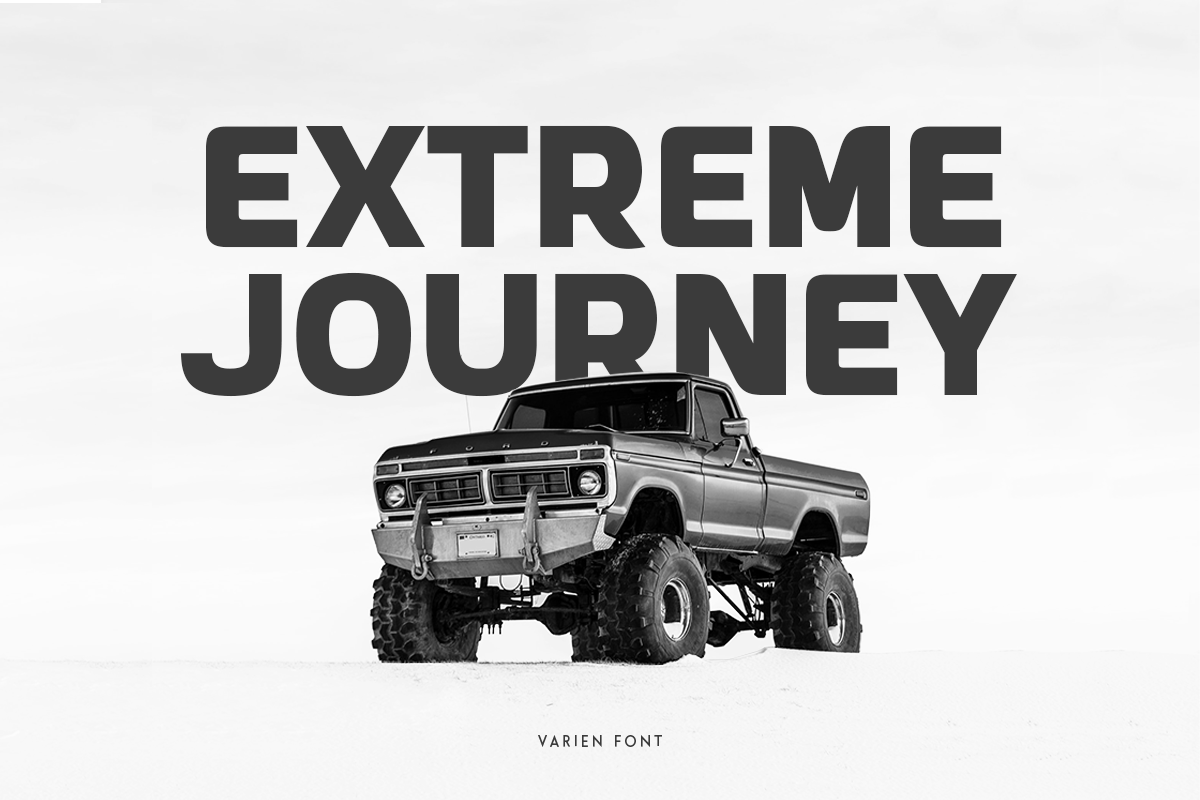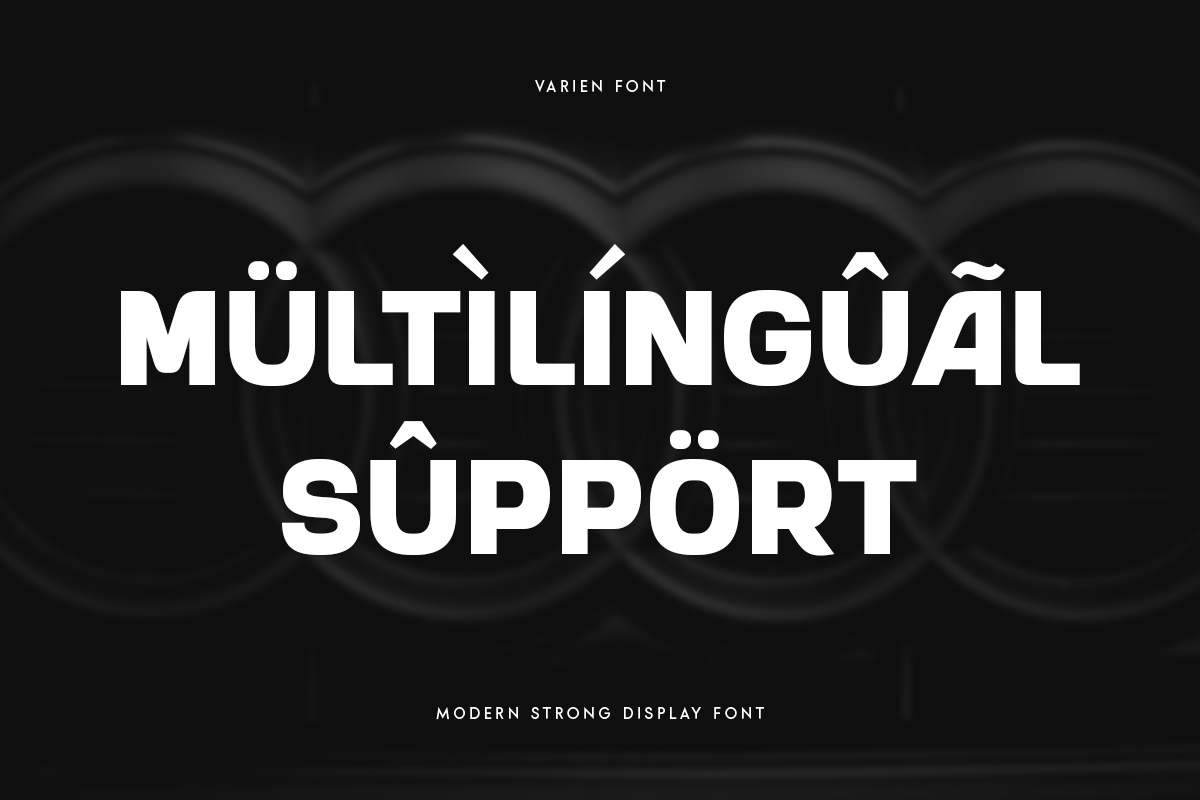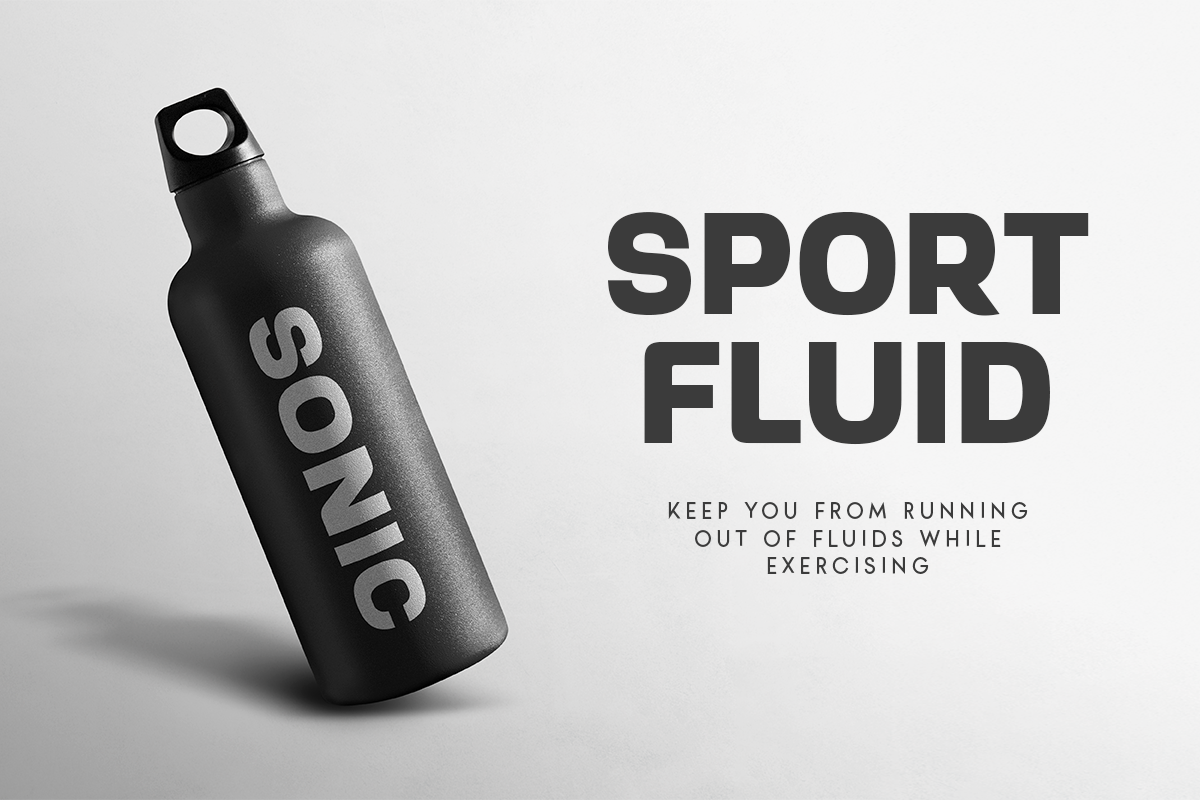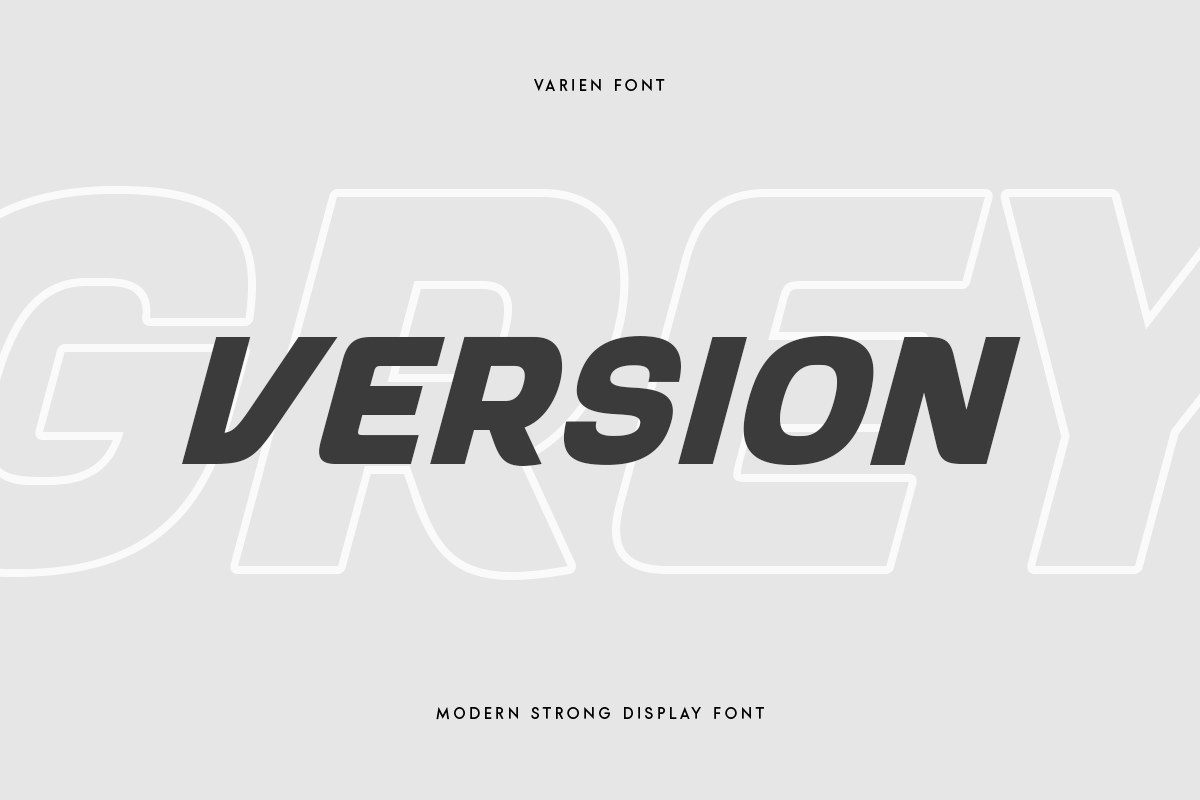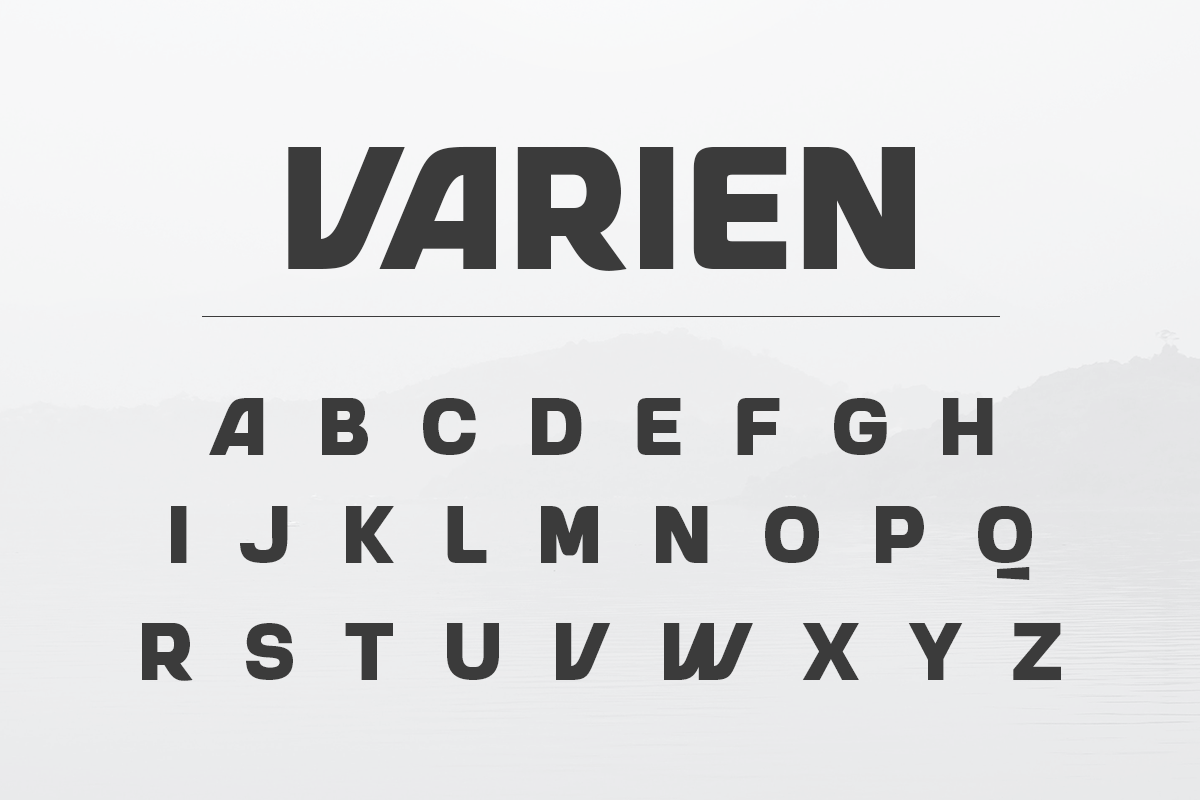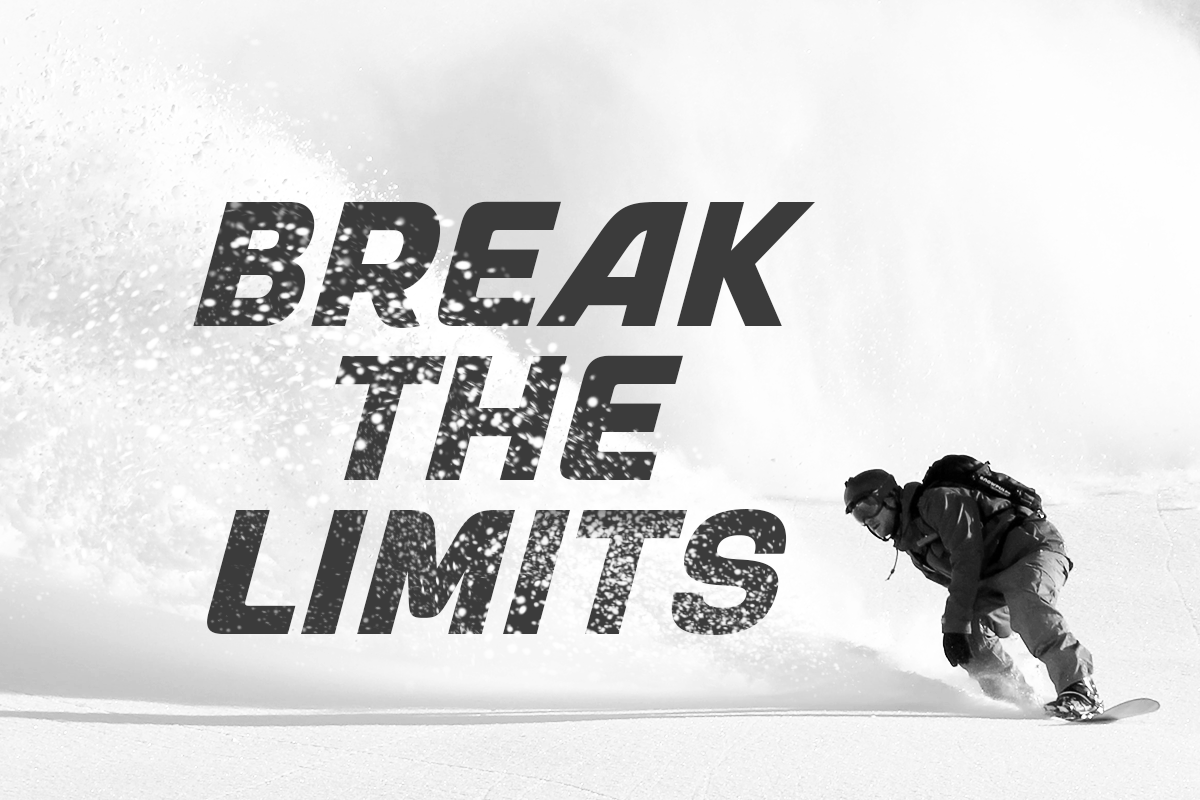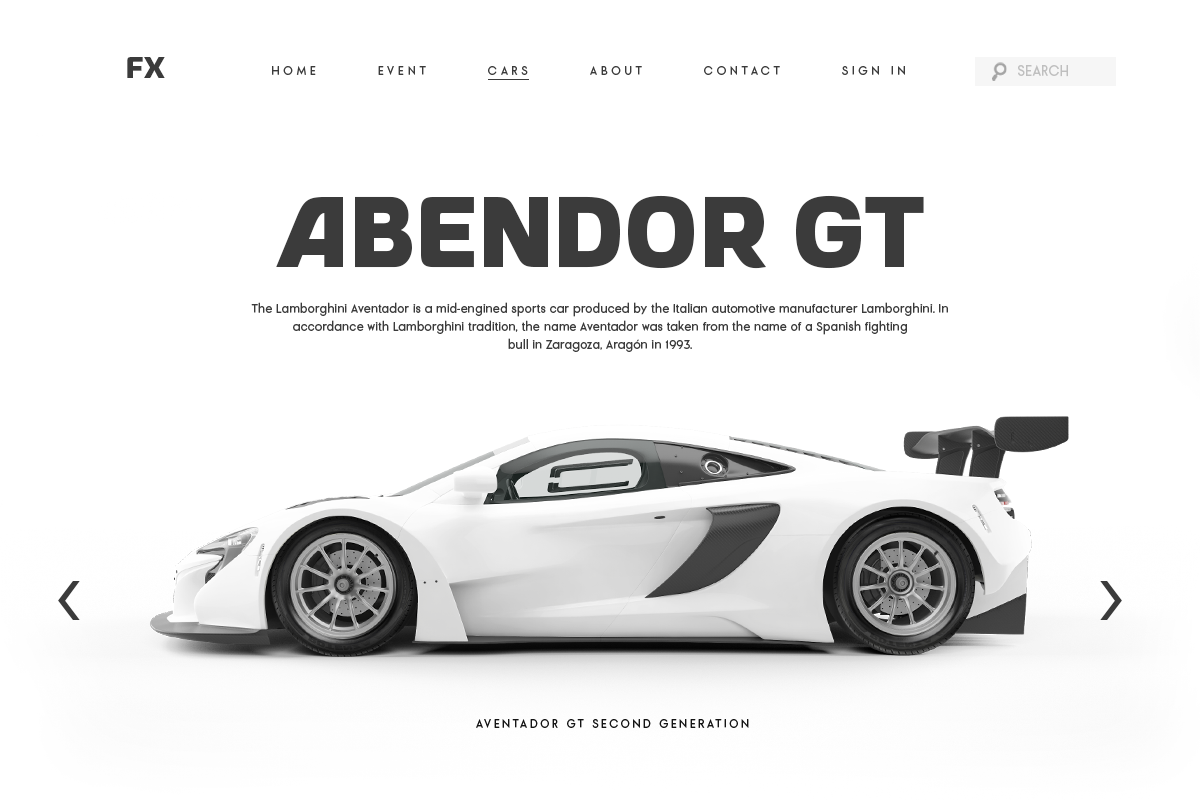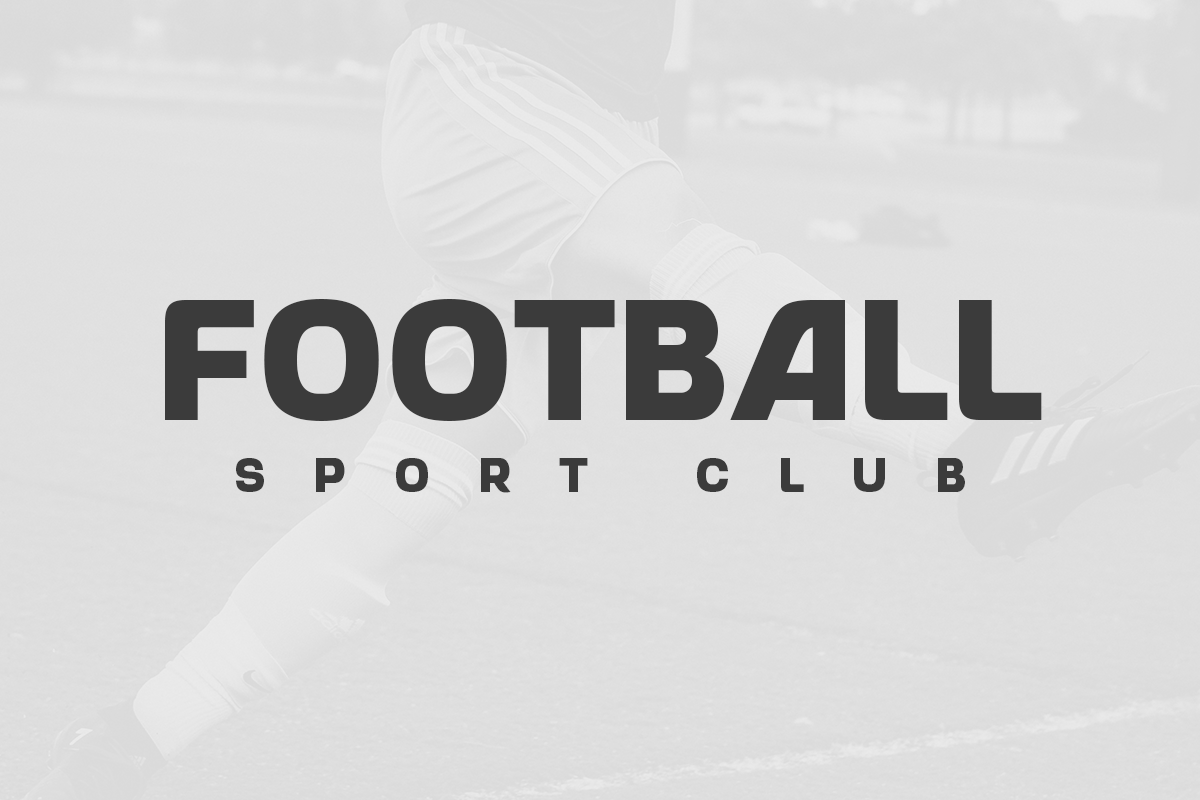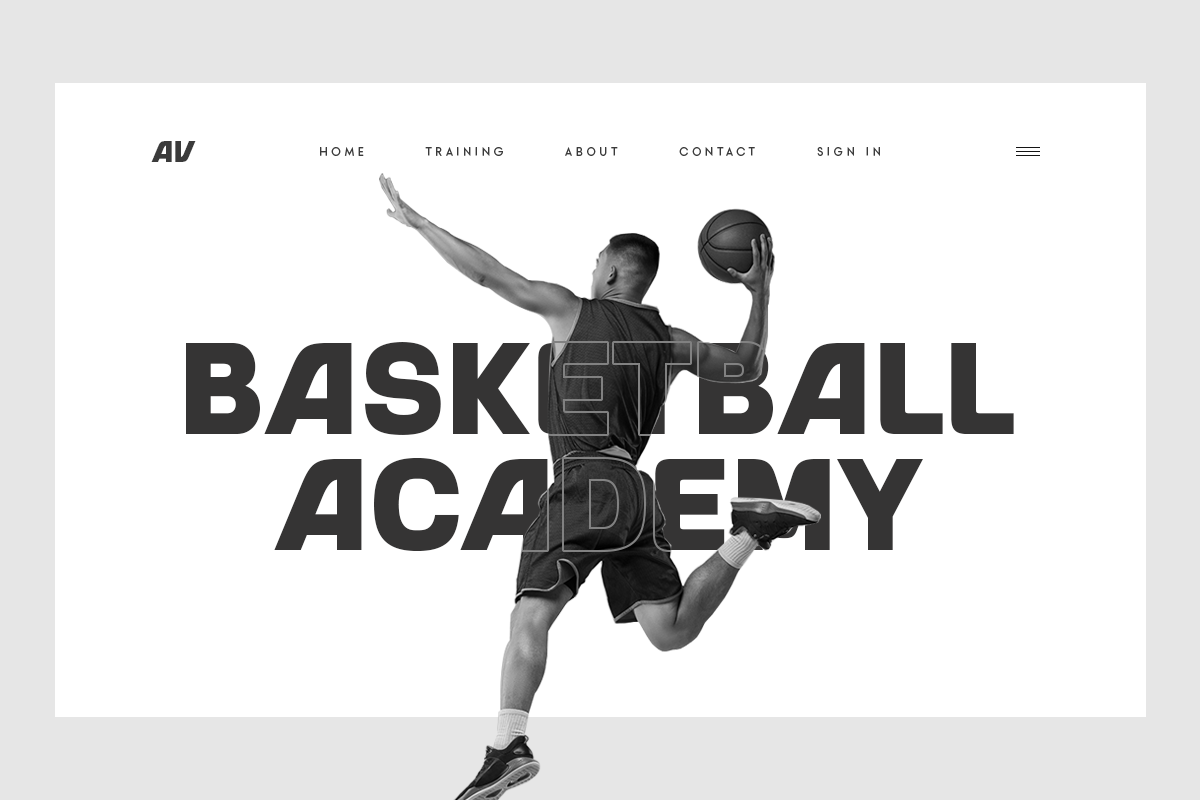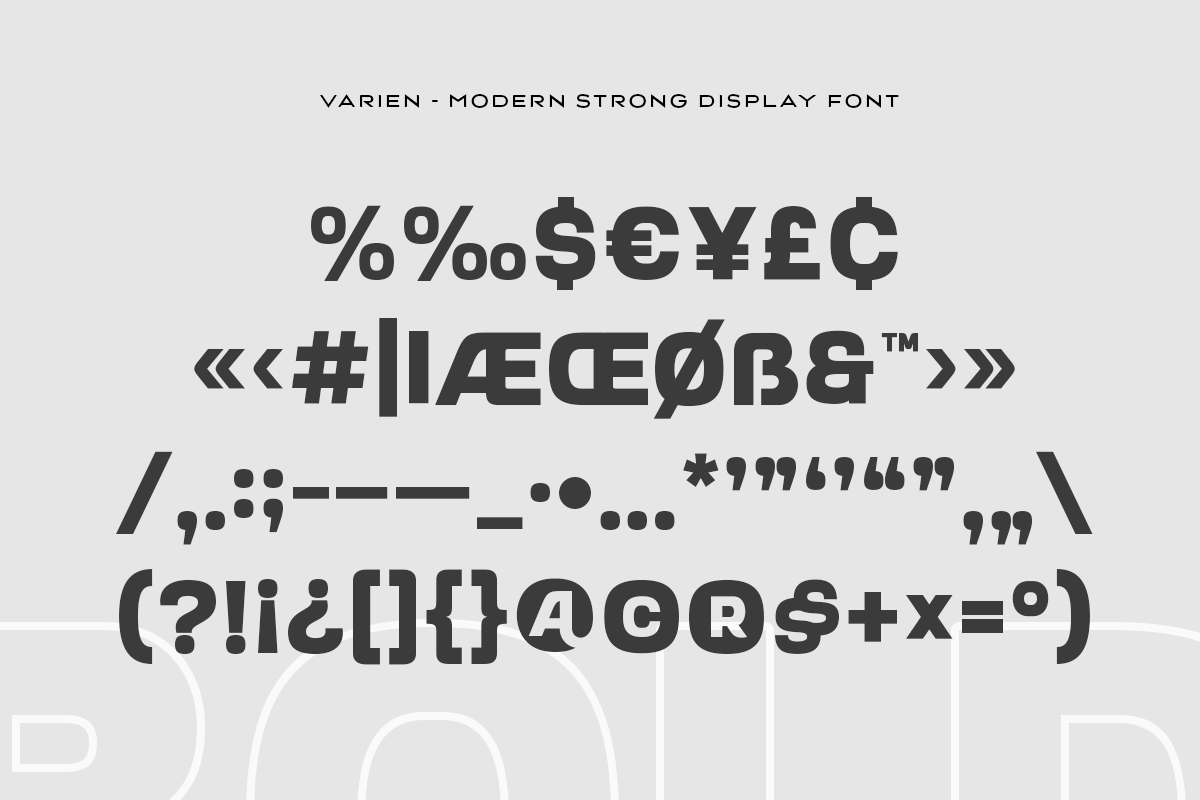
VARIEN - Modern Strong Display Font
A Modern Strong Display Font that perfect for technology, sport, racing, action design project.
A new Display Font that we created special for Headline, Title and more stand out typography needs, with extra outline that will add your variations. It's so perfect to add your style and headline overview. And specially for Headline font, we crafted for futuristic style and modern feels so enjoy to create any project that will show your main idea out.
- Any options to get creative variations (combination of Outline Characters)
- Preview as a inspirations that you can do with Varien font
- Ready with All Uppercase characters